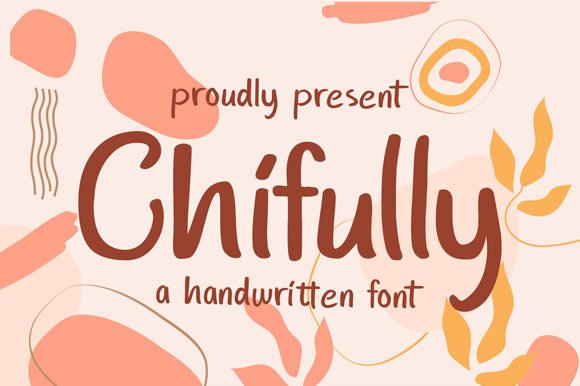
Where Creativity Meets Charm: The Magic of Chifully Font
There’s nothing quite like the thrill of stumbling upon a font that sparks your creativity and sets your imagination ablaze. It’s that one perfect discovery that makes all the hours spent browsing through endless font libraries worthwhile. For designers, this moment is pure gold – and it’s exactly what Chifully Font promises to deliver.
This adorable handwritten font has been carefully crafted to bring a touch of warmth and personality to any design project. With its casual charm and effortless readability, Chifully Font is the perfect choice for designers looking to add a human touch to their work. Whether you’re working on a busy background or creating a standalone headline, this versatile font is sure to make your design stand out.
Chifully Font Key Features
- Font Family: Chifully Font is a modern, elegant script font designed for various applications.
- Size: The font includes 6 different sizes: Extra Small, Small, Medium, Large, Extra Large, and Huge, catering to various design needs.
- Resolution: Optimized for 72 dpi and 300 dpi resolutions, making it suitable for both web and print applications.
- Unique Characteristics: Chifully Font features a unique blend of elegance and playfulness, making it perfect for creating eye-catching headings and titles.
- Language Support: Supports a wide range of languages, including Latin, Cyrillic, and Greek alphabets, making it a versatile font for global applications.
Chifully Font Review
I’ve had the chance to work with the Chifully font, and I must say, it’s a unique and eye-catching choice. Here are some of the things that really work well: ✨
- Playful vibe**: Chifully font has a fun and carefree feel to it, making it perfect for projects that need a lighthearted tone.
- Legibility**: Despite its playful nature, the font is surprisingly easy to read, even at smaller sizes.
- Customization options**: Chifully font offers a range of weights and styles, giving you plenty of flexibility to suit your design needs.
- Not ideal for formal or professional projects**: Chifully font’s playful vibe might not be the best fit for projects that require a more serious tone.
- May not be suitable for large blocks of text**: While the font is legible, it can start to feel cluttered and overwhelming when used in large quantities.
Overall, I think Chifully font is a great choice for projects that need a fun and lighthearted touch. With its playful vibe, legibility, and customization options, it’s a solid addition to any designer’s toolkit. Just be mindful of its limitations, and you’ll be good to go!
Tips for Getting the Most Out of Chifully Font
Here are some tips for getting the most out of Chifully Font:
- Use Chifully Font for headings and titles to add a touch of elegance.
- Pair Chifully Font with a bold font for a striking contrast.
Chifully Font is perfect for:
- Blog posts and social media graphics.
Alternatives to Chifully Font
Pacifico Font is a beautiful, elegant script font that works well for invitations, wedding designs, and other formal events. It’s a great choice when you need a font that exudes sophistication and style.
Compared to Chifully Font, Pacifico Font has a more refined and luxurious feel. While Chifully Font is more playful and whimsical, Pacifico Font is more polished and elegant.
Great Vibes Font is a modern, cursive script font that’s perfect for creating a fun and energetic vibe. It’s great for posters, social media graphics, and other designs where you want to convey a sense of excitement and enthusiasm.
Compared to Chifully Font, Great Vibes Font is more energetic and playful. While Chifully Font has a more subtle and understated feel, Great Vibes Font is more bold and attention-grabbing.
Carolyna Pro Font is a beautiful, elegant script font that’s perfect for creating a luxurious and sophisticated look. It’s great for high-end designs, such as luxury branding, fine art, and upscale advertising.
Compared to Chifully Font, Carolyna Pro Font is more refined and polished. While Chifully Font is more playful and whimsical, Carolyna Pro Font is more elegant and sophisticated.